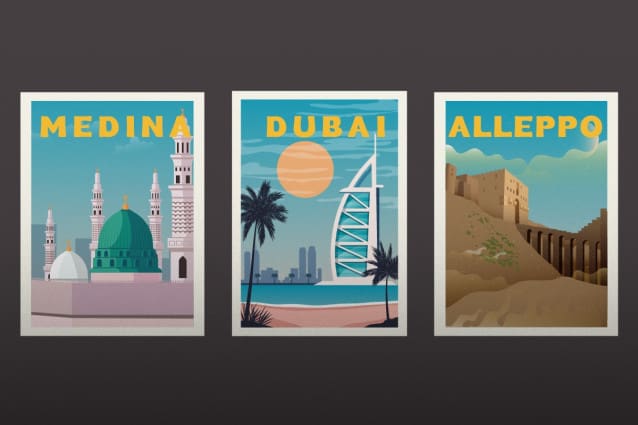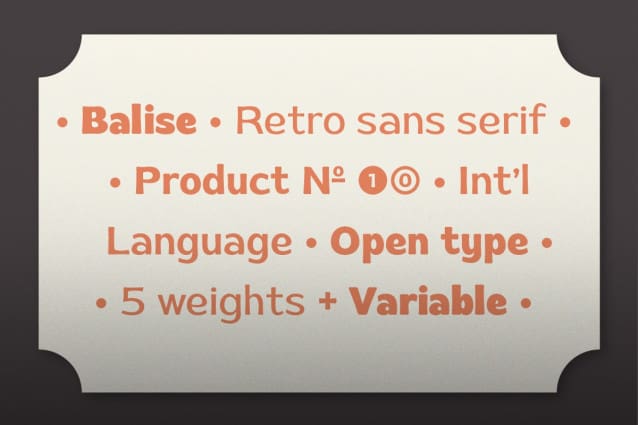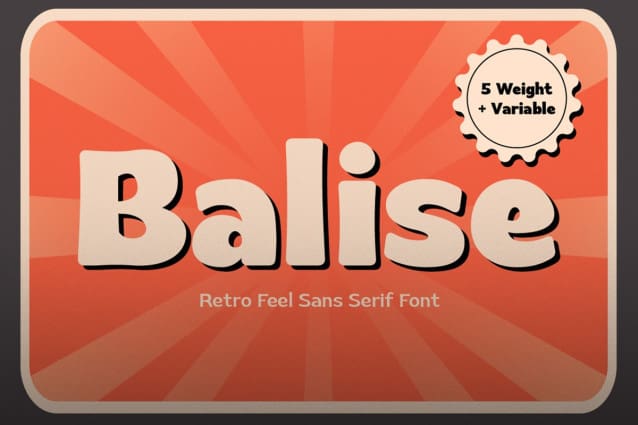
Balise Font
Balise Font is a font that effortlessly bridges the gap between the nostalgia of 80’s retro style typefaces and the contemporary design landscape. Its retro sans serif influence is unmistakable, capturing the essence of that iconic era. Yet, it doesn’t stop there. Balise font infuses a sense of playfulness with its rounded corners, creating a delightful and vintage-inspired design style that’s perfect for a wide range of creative projects.